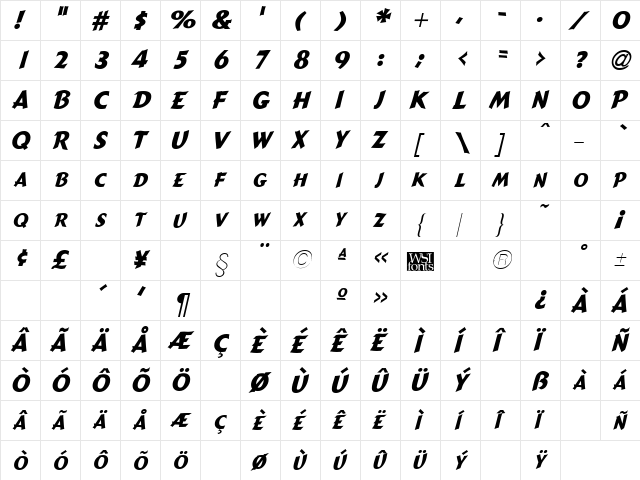
GremlinCaps Bold Italic Font Preview
GremlinCaps Bold Italic
Design Context for GremlinCaps Typeface
GremlinCaps takes a measured approach to typography — its balanced proportions and neutral character make it a reliable workhorse for both digital and print work. Its italic angle brings a sense of urgency and motion to the letterforms. Its bold stroke weight gives it real presence on the page.
Pro Tip: Use GremlinCaps for emphasis, pull quotes, and subheadings where its slanted energy can add rhythm to the layout.